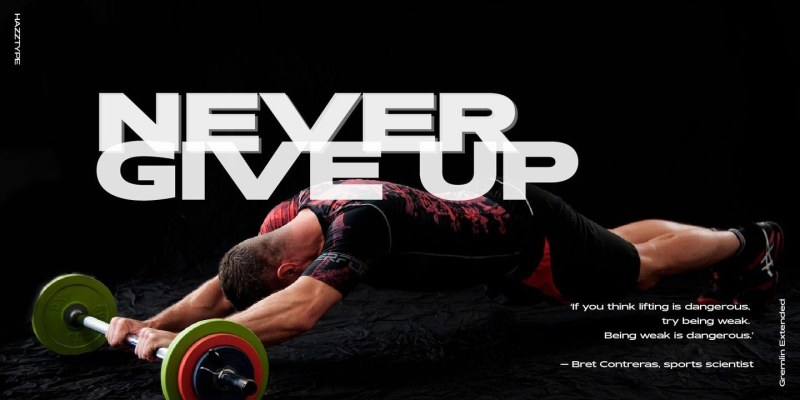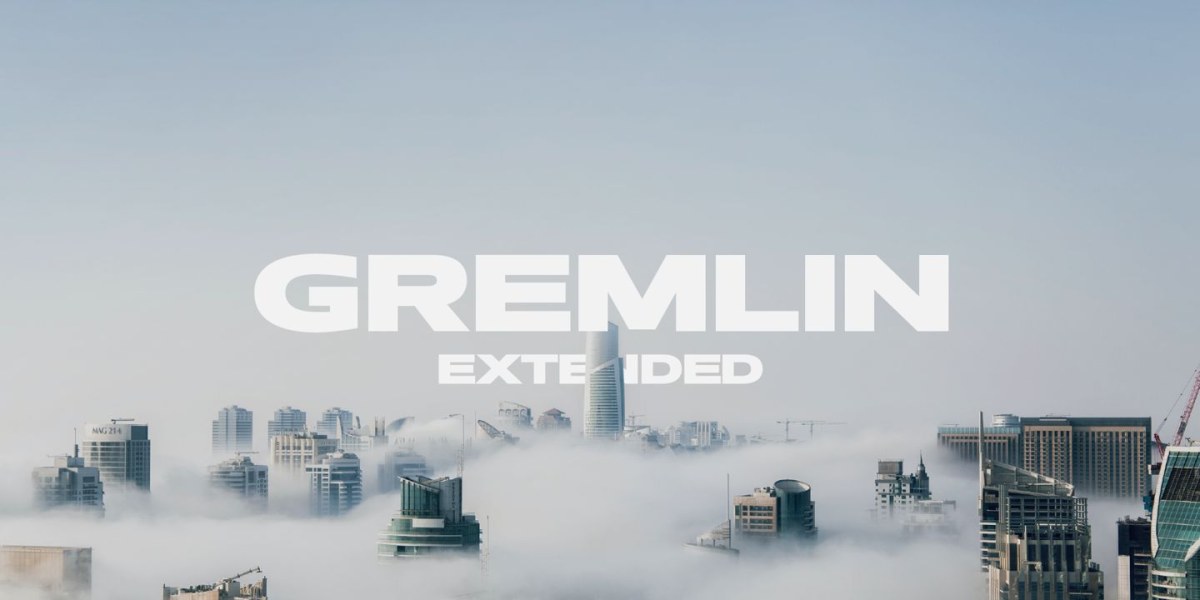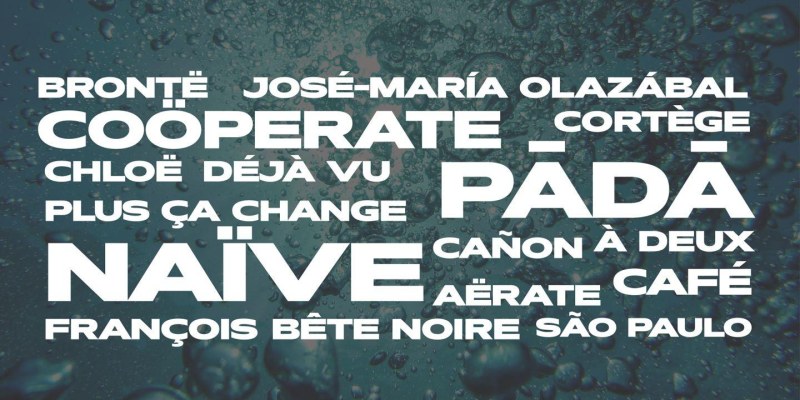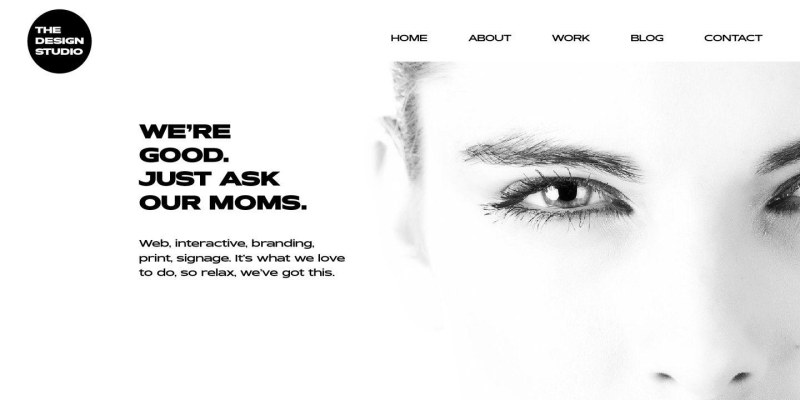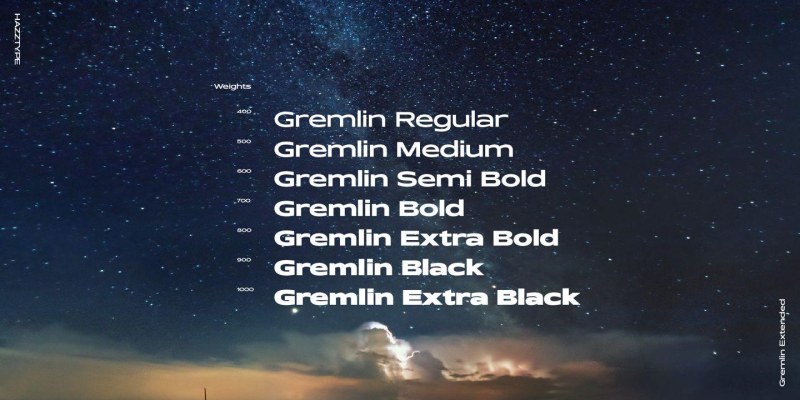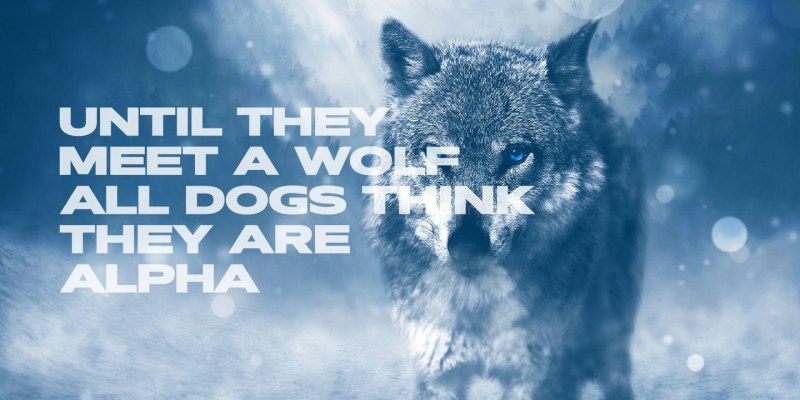
Gremlin Font Family
Gremlin is an extended width sans serif typeface. The family includes 6 fonts in a variety of weights and over 300 alternate glyphs. The typeface also supports a huge number of Latin and Cyrillic languages. This confident typeface can be used for various purposes, such as text, logos, headings, and branding.
Where Gremlin Font Family works best
Gremlin Font Family stays legible at small sizes, which makes it a strong choice for navigation, buttons and dashboards in web design and app interfaces.
Clean sans serifs like Gremlin Font Family are the default language of SaaS, fintech and product branding.
What is Gremlin Font Family good for?